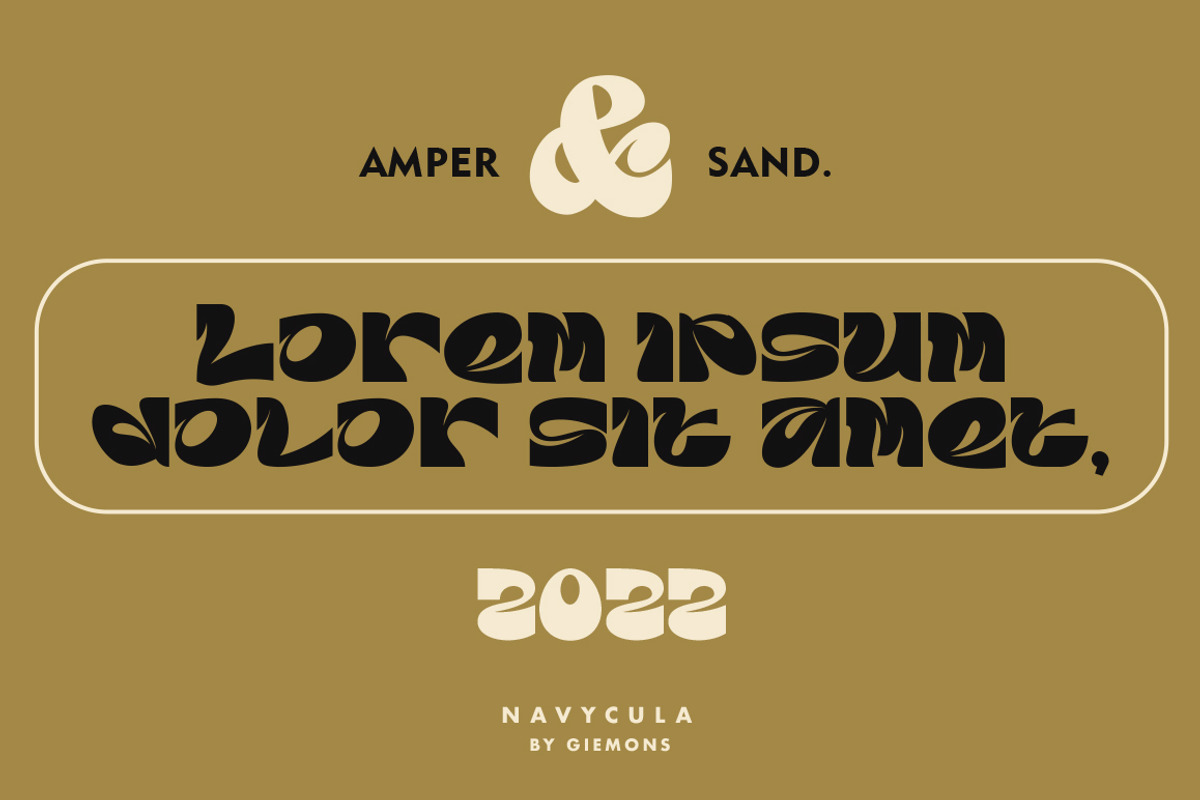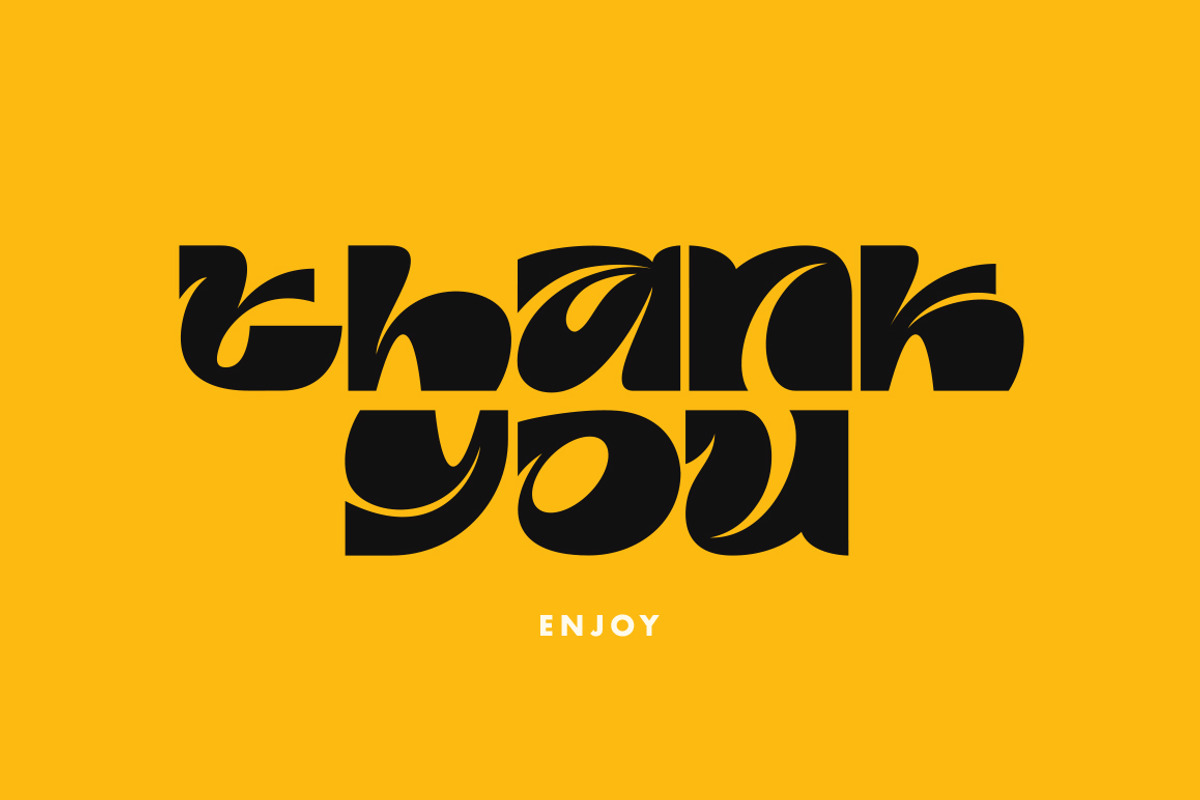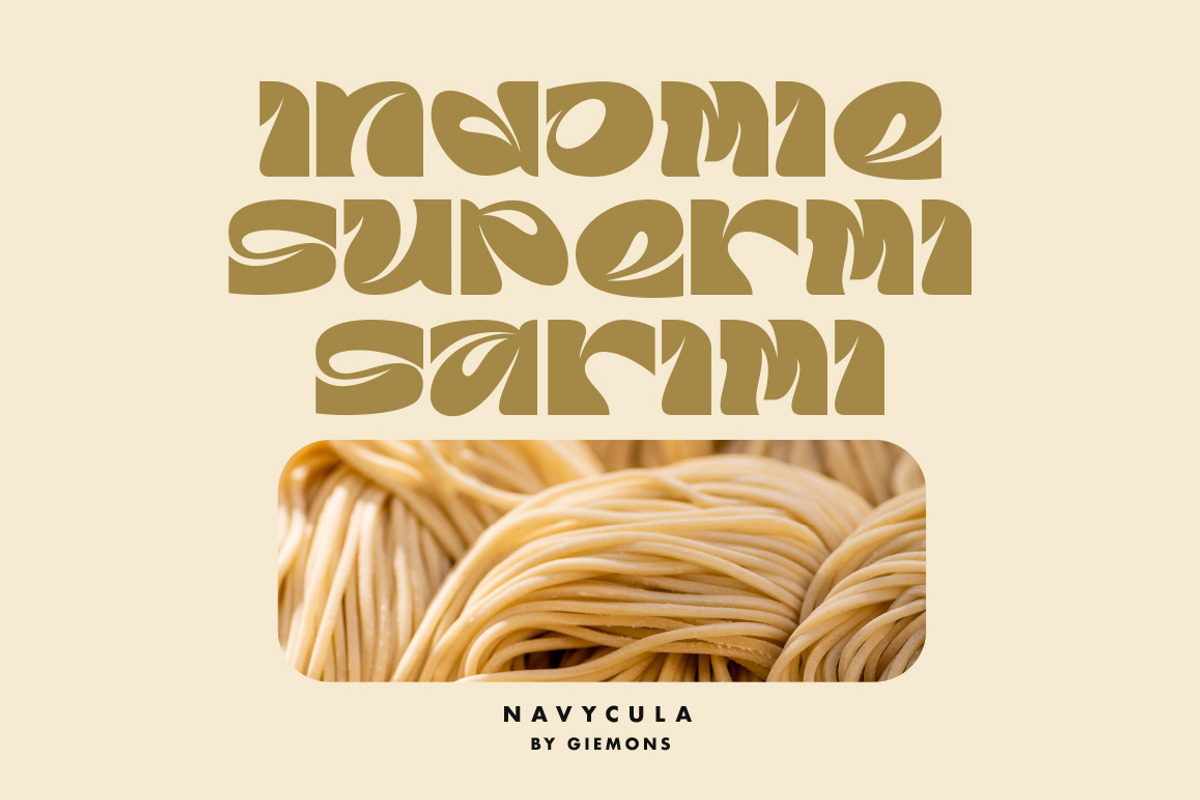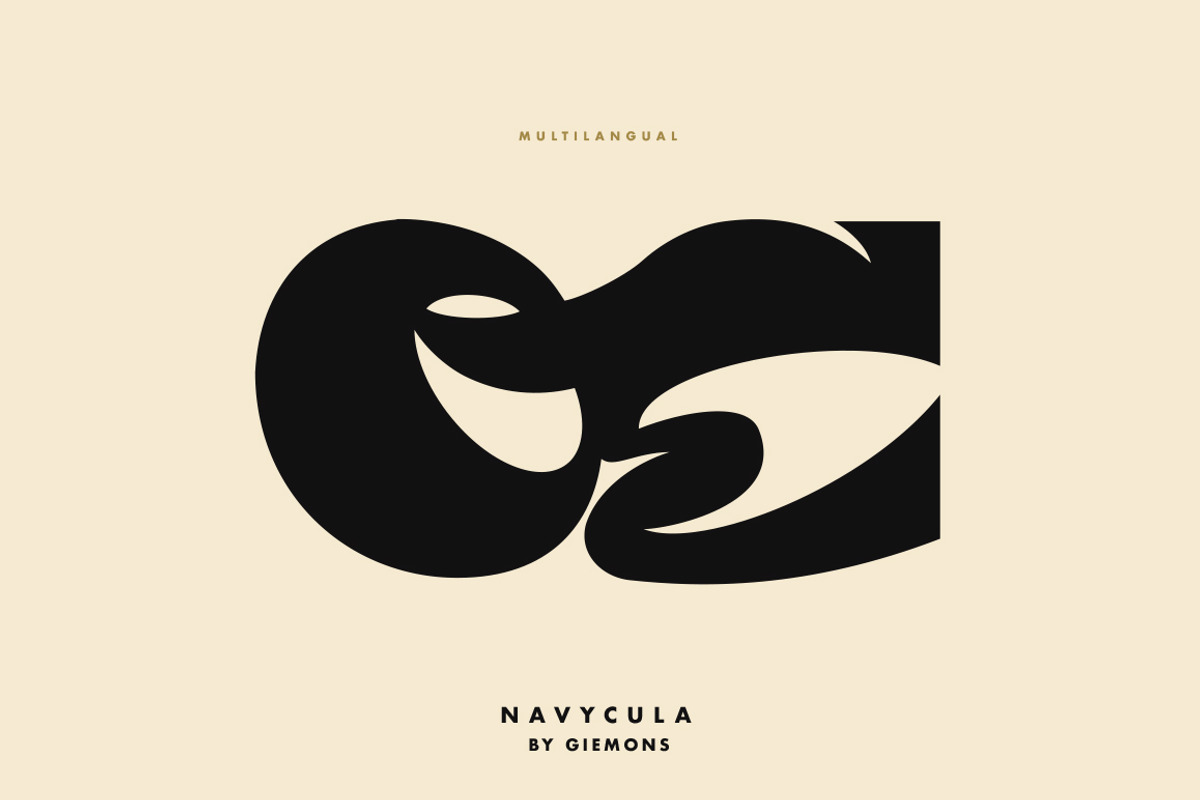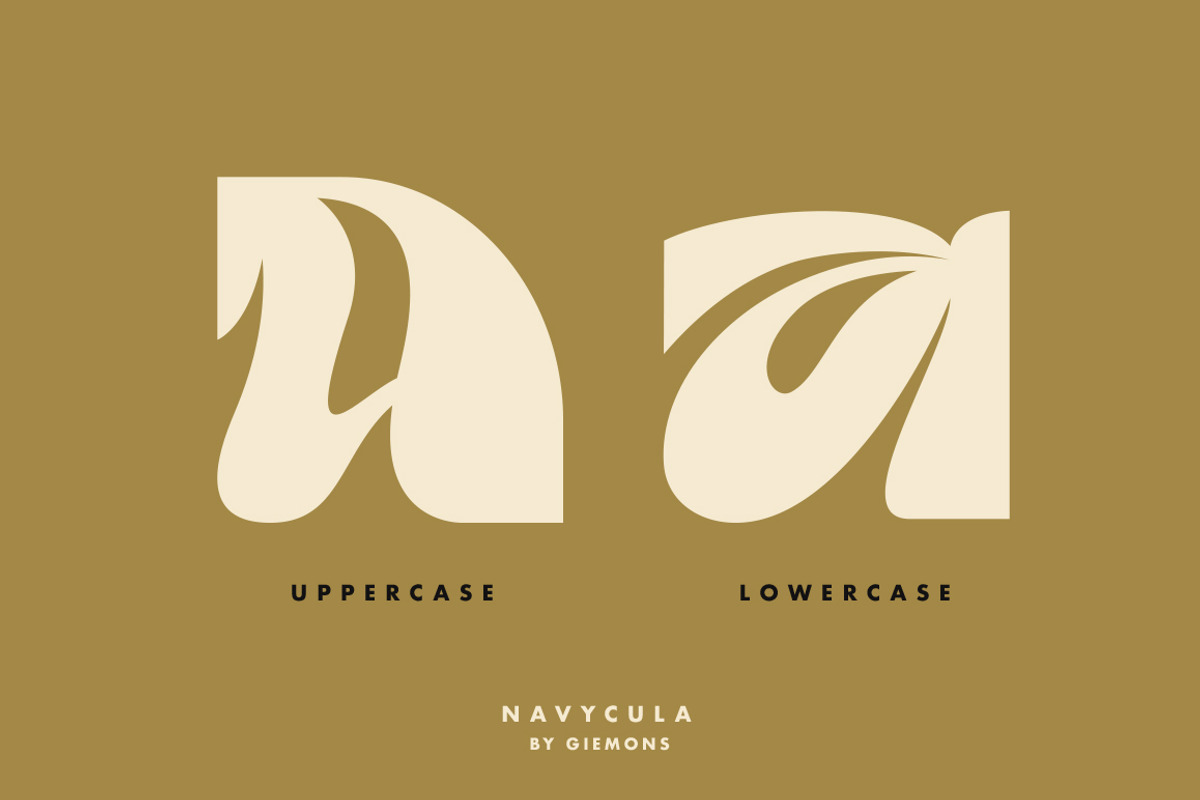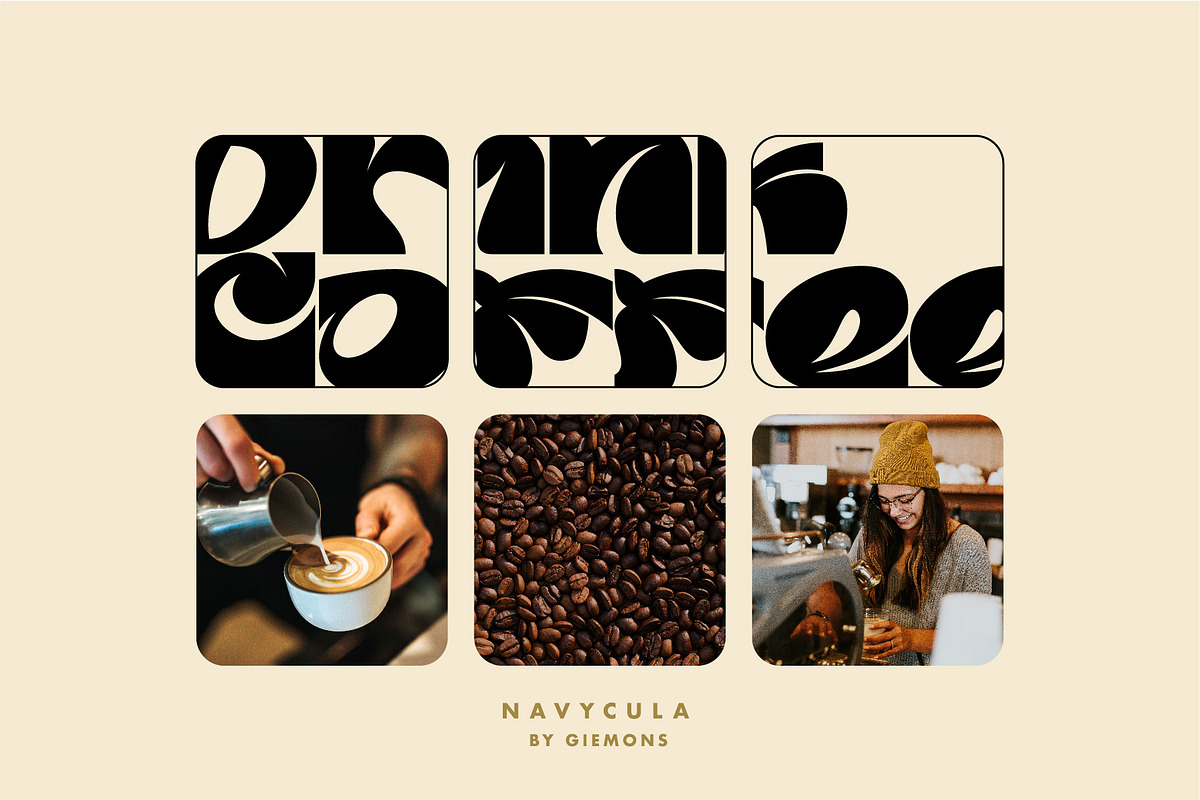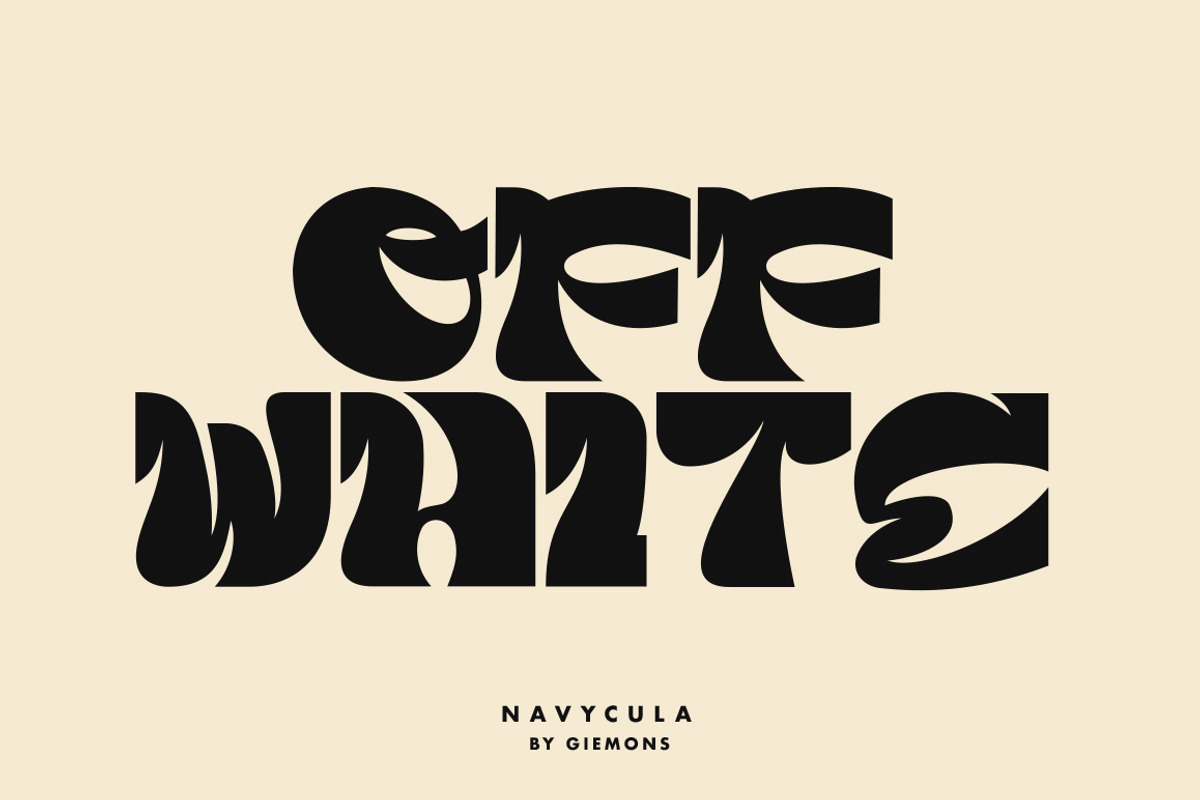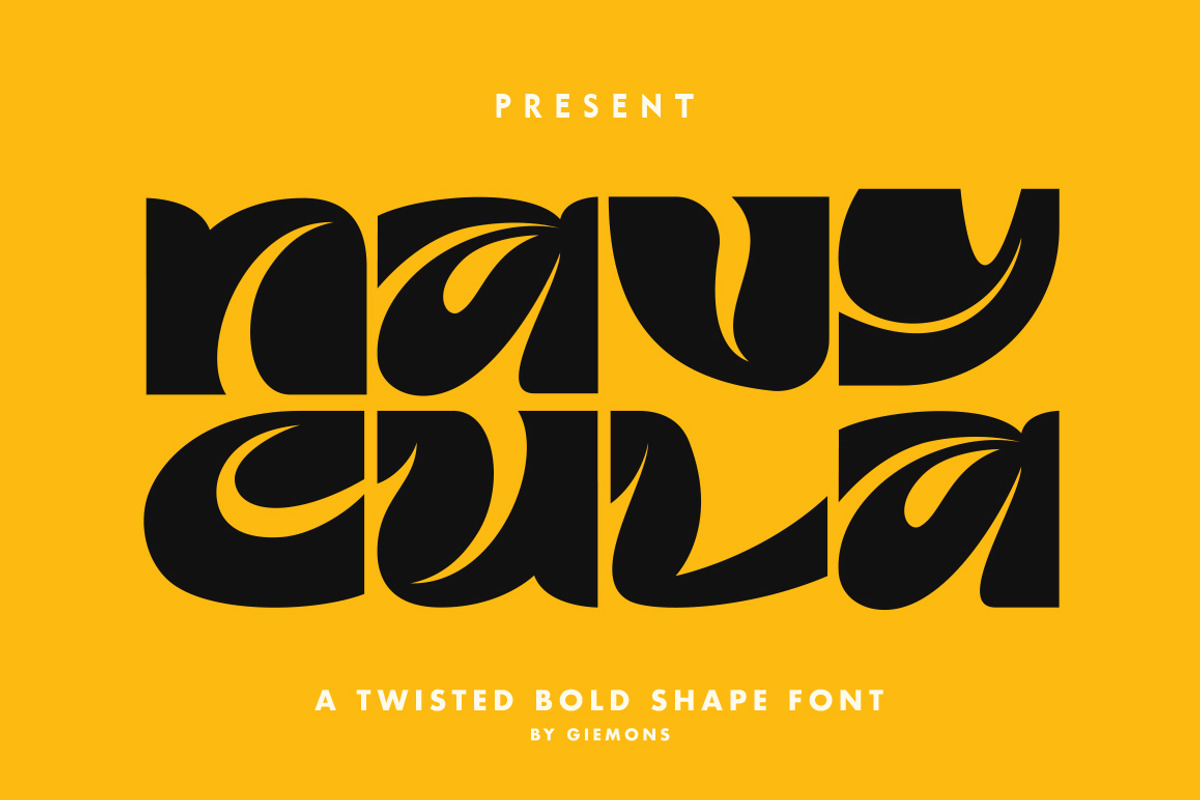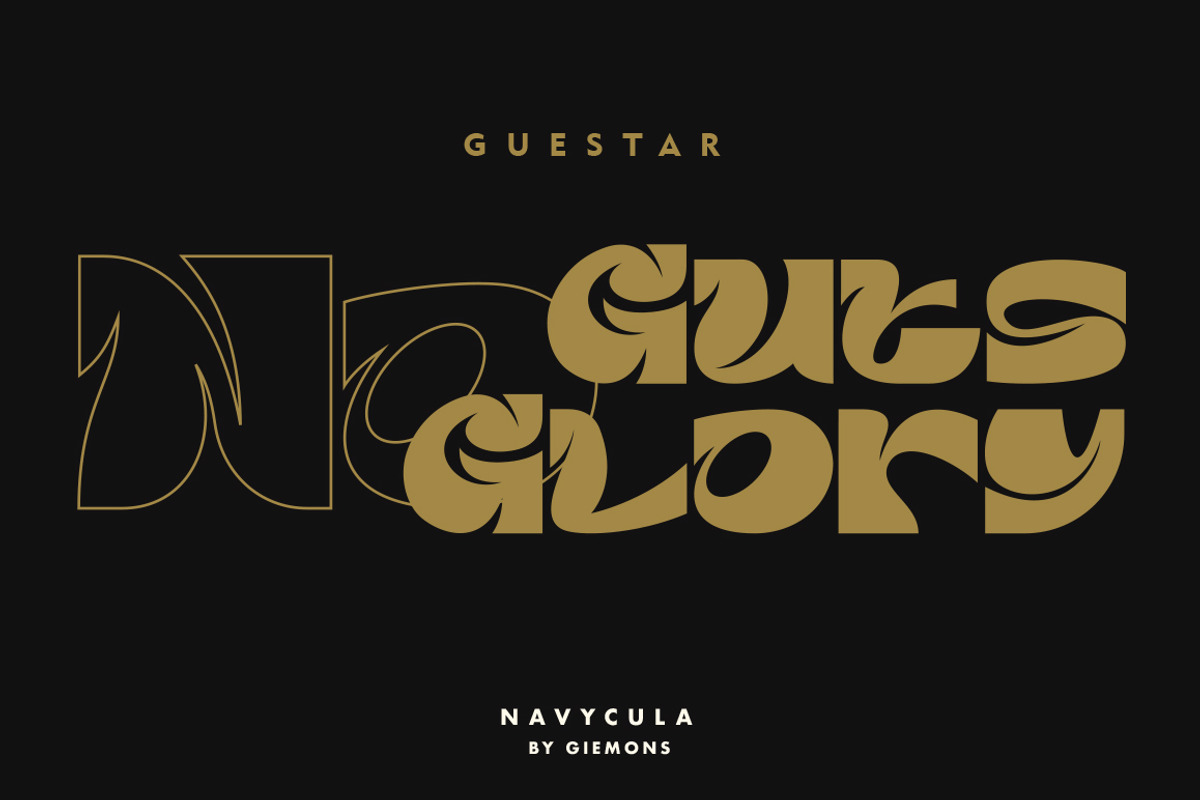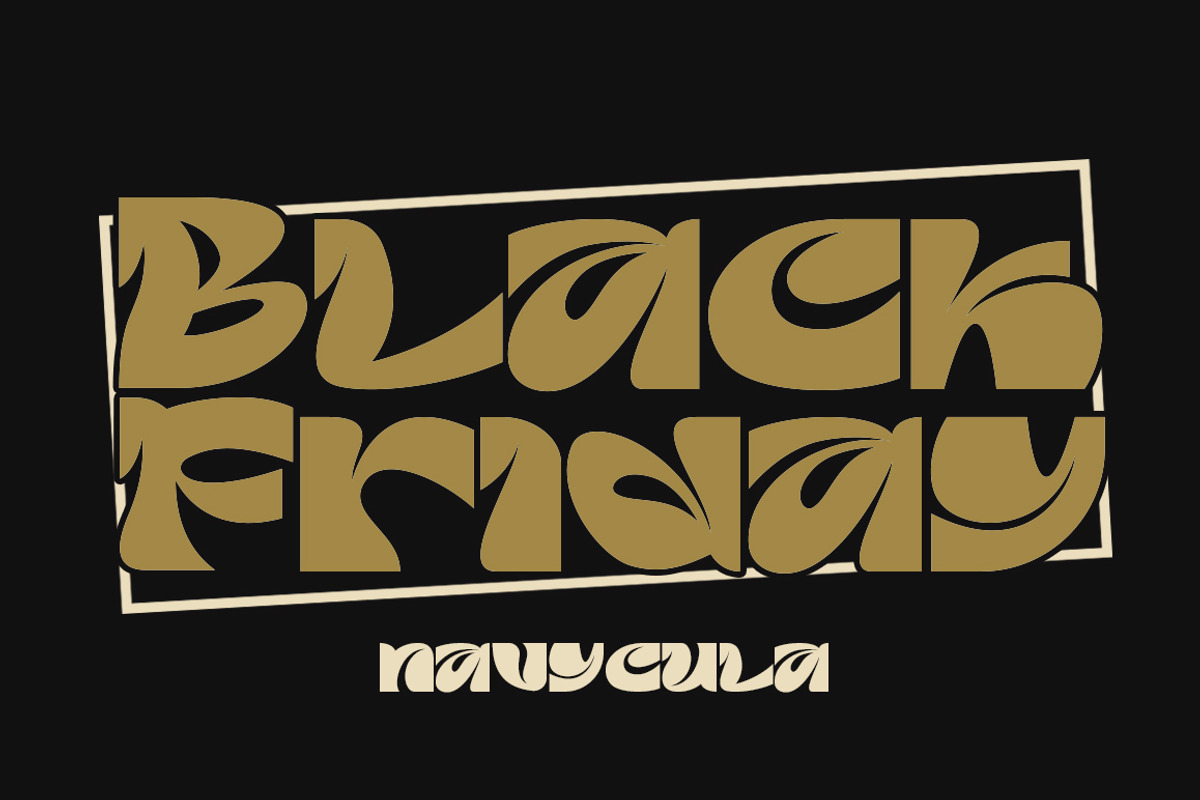
Navycula Font - Twist bold
A NAVYCULA typeface with a twisted BOLD shape style, combines classic modern styles to make it look very trendy and more standout.. easy to use for branding, logo, digital marketing, and any more.